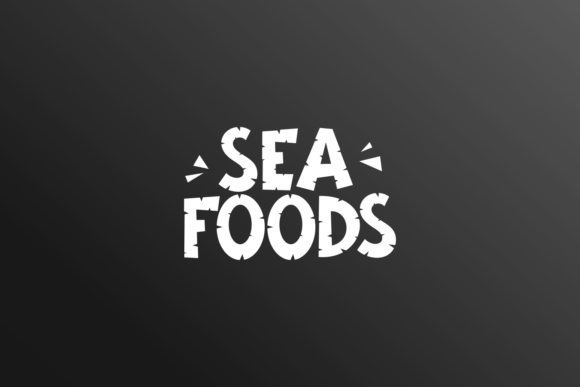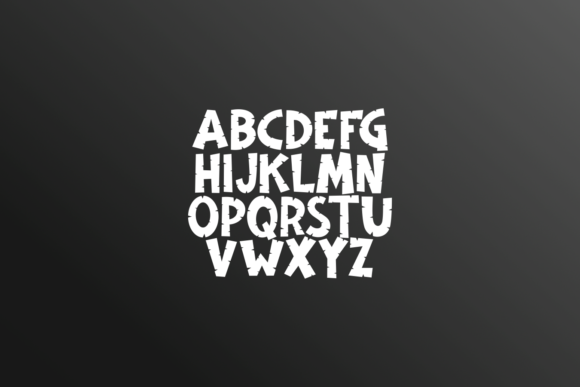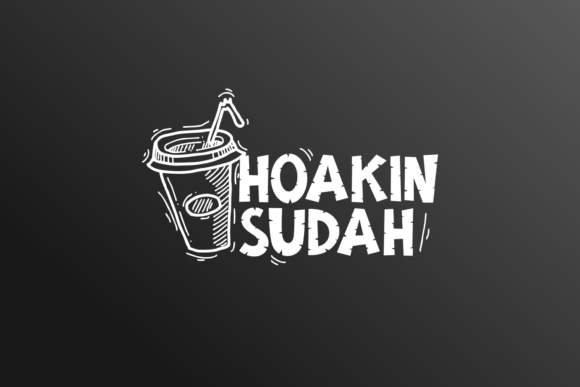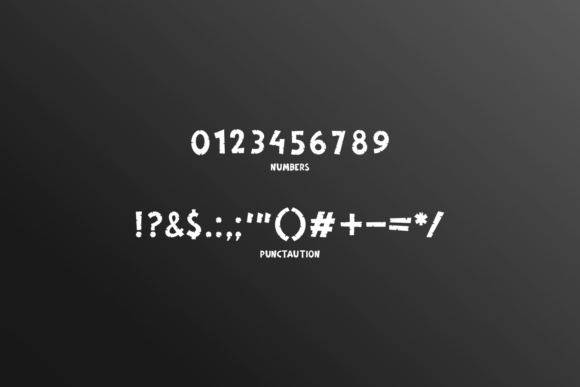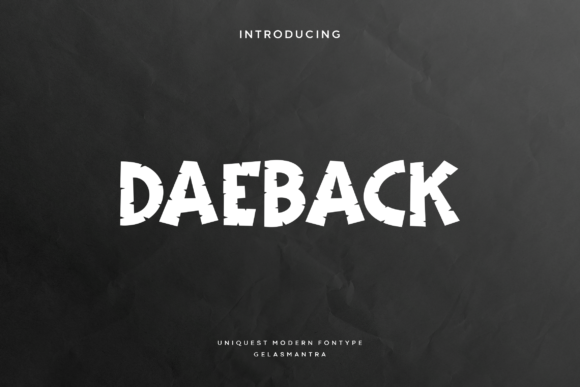
Introducing Daeback Font: The Perfect Blend of Modern and Playful
In the world of typography, fonts play a crucial role in conveying the tone and personality of a design. For designers and crafters looking to add a touch of modernity and uniqueness to their work, the Daeback font is an excellent choice. This all-caps font boasts a dynamic style with a hint of childish accent, making it perfect for titles, website descriptions, and other design elements.
What Makes Daeback Font Stand Out?
Daeback font is characterized by its distinctive cut on the sides, giving it a fun and playful look. This font combines rough and slash styles, creating a unique and modern feel that’s hard to resist. The dynamic style of Daeback font makes it perfect for designers who want to add a touch of personality to their work. Whether you’re working on a website, a brochure, or a social media post, Daeback font is sure to grab attention.
Key Features of Daeback Font
- All-caps font: Daeback font is an all-caps font, making it perfect for titles, headings, and emphasis.
- Dynamic style: The font’s dynamic style gives it a modern and energetic feel.
- Childish accent: The font’s childish accent adds a touch of playfulness and whimsy.
- Cut on the sides: The distinctive cut on the sides gives the font a unique and fun look.
- Combination of rough and slash styles: The font’s combination of rough and slash styles creates a unique and modern feel.
Daeback font is perfect for designers and crafters who want to add a touch of modernity and uniqueness to their work. The font’s versatility makes it suitable for a wide range of design projects, including:
- Titles and headings: Use Daeback font to create eye-catching titles and headings that grab attention.
- Website descriptions: Add a touch of personality to your website descriptions with Daeback font.
- Social media posts: Use Daeback font to create engaging and eye-catching social media posts.
- Brochures and flyers: Add a touch of modernity to your brochures and flyers with Daeback font.
Why Choose Daeback Font?
With so many fonts available, why choose Daeback font? Here are a few reasons:
- Unique and modern feel: Daeback font offers a unique and modern feel that’s hard to resist.
- Versatility: The font’s versatility makes it suitable for a wide range of design projects.
- Easy to read: Despite its dynamic style, Daeback font is easy to read, making it perfect for body text and captions.
In conclusion, Daeback font is an excellent choice for designers and crafters looking to add a touch of modernity and uniqueness to their work. With its dynamic style, childish accent, and distinctive cut on the sides, Daeback font is perfect for titles, website descriptions, and other design elements. Grab it right away and use it to give your designs a fresh new look!